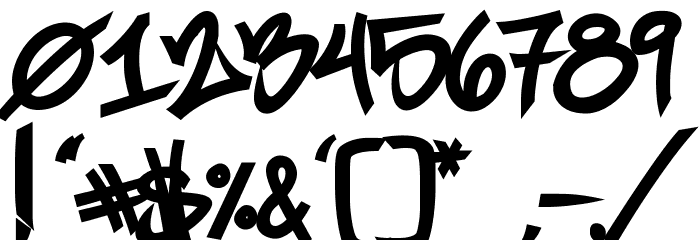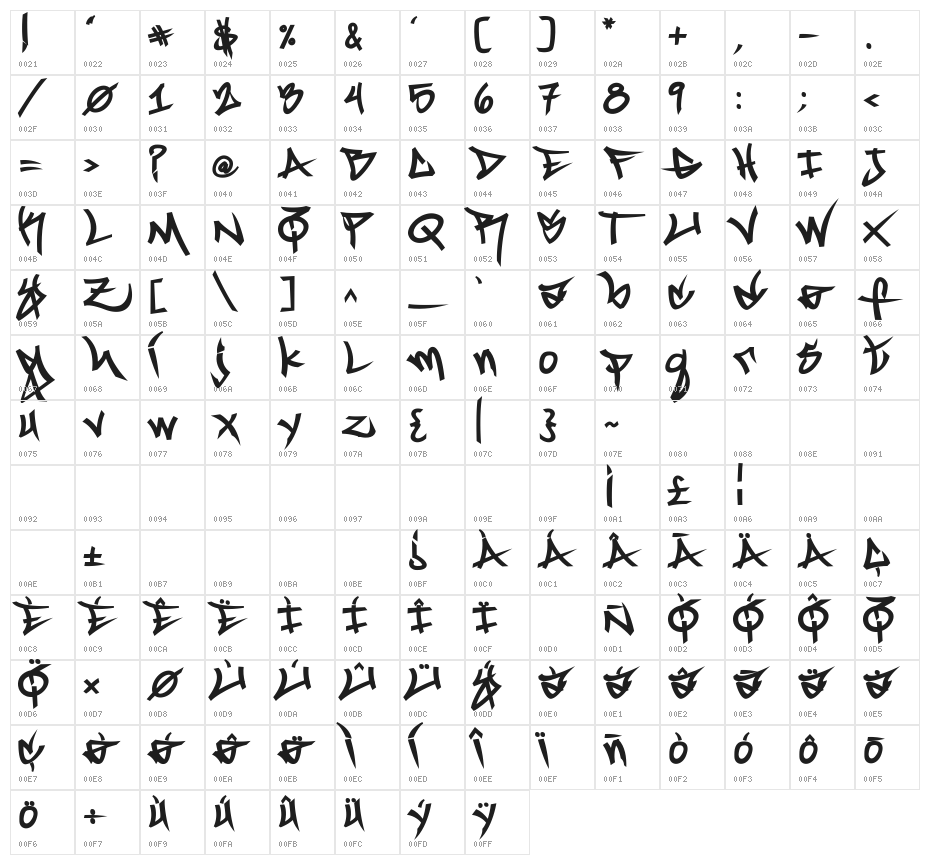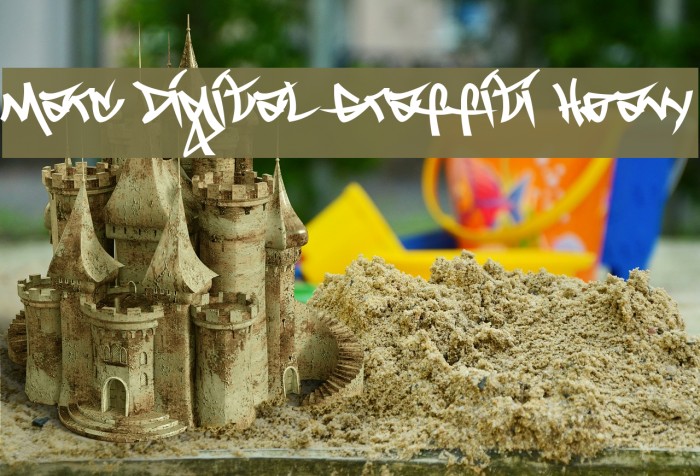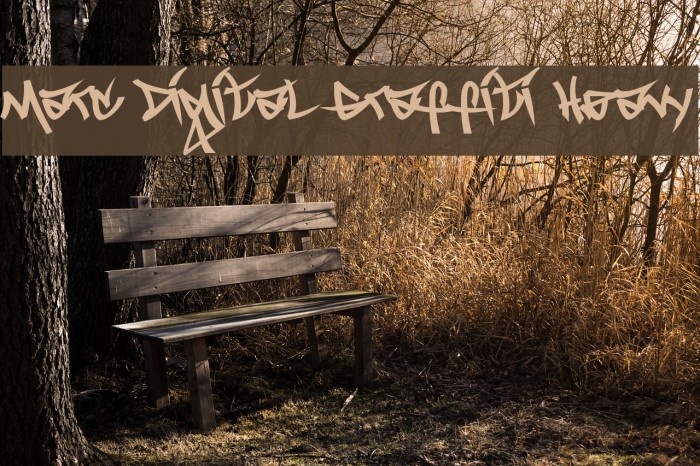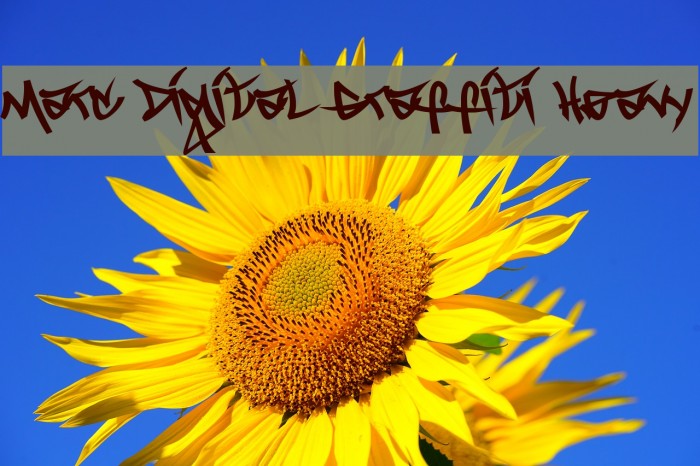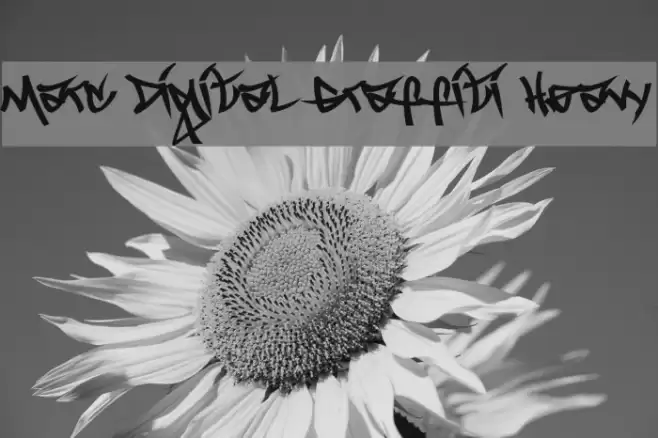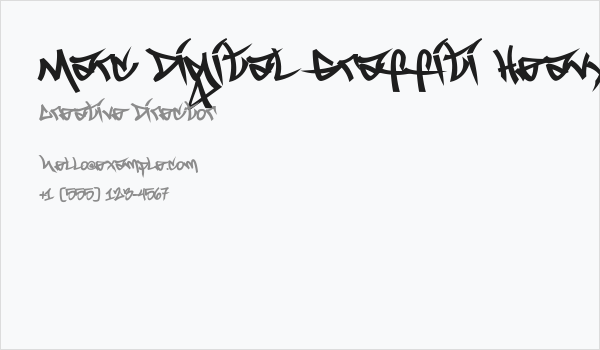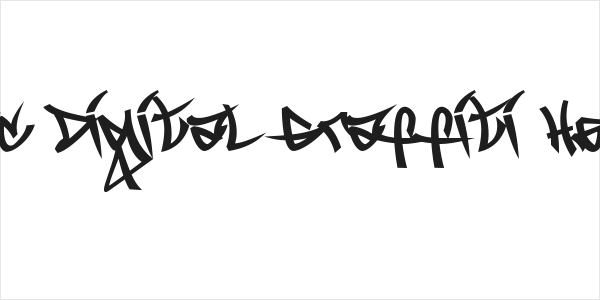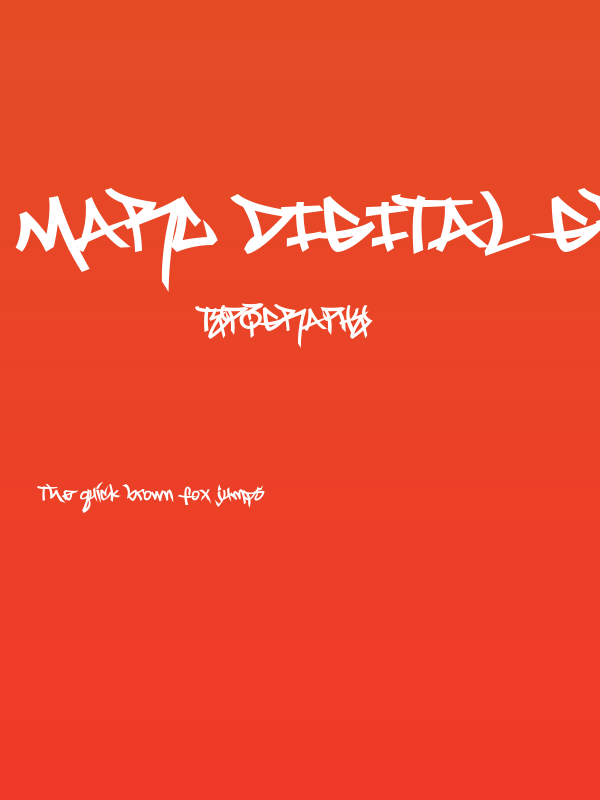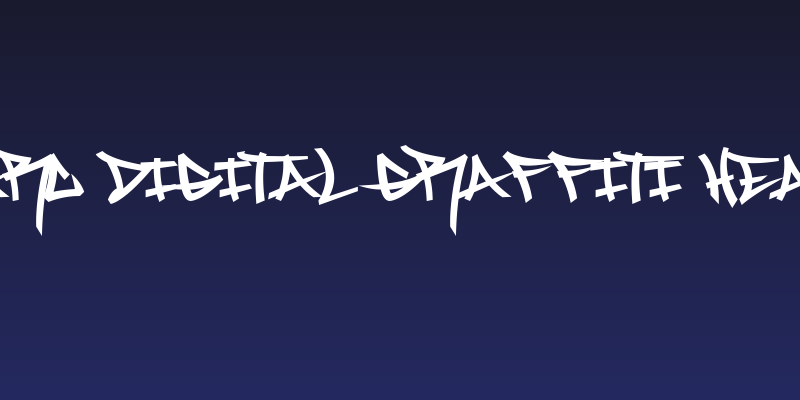
Marc Digital Graffiti Heavy Font
Marc Digital Graffiti Heavy Description
This font embodies the raw, energetic style of graffiti art, characterized by its bold and dynamic strokes. Each letter is uniquely crafted with sharp angles and a sense of movement, capturing the essence of street art. The uppercase and lowercase letters maintain a consistent style, with exaggerated curves and a slightly chaotic arrangement that adds to its urban appeal. Numbers and special characters follow the same aesthetic, making them stand out with their artistic flair. This font is perfect for projects that require a bold statement and a touch of rebellious creativity.
Overall StyleUrban, Artistic, Rebellious
Proposed ProjectsIdeal for street art designs, urban-themed posters, edgy branding, and music album covers.